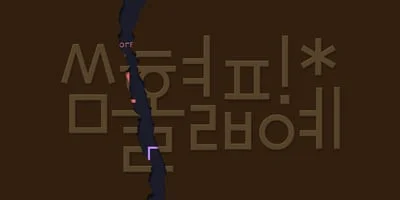
Core Dodam Font
Core Dodam Font is ideal for minimalist design projects, clean modern branding, essential business communications, core technology companies, fundamental education materials, basic geometric layouts, simple architectural presentations, streamlined corporate identities, essential product packaging, and foundational design principles.
What makes Core Dodam Font exciting is its essential simplicity and fundamental clarity that embodies the essence of core design principles with pure functionality and elemental sophistication. This refined typeface captures the spirit of fundamental design with its clean character forms and core-inspired proportions that evoke the essential building blocks of great typography, the fundamental principles that support all excellent design, and the kind of elemental beauty that comes from reducing everything to its most essential form. The font's fundamental character creates an immediate impression of clarity and the kind of essential elegance that defines truly foundational design.
Core Dodam Font family includes regular weight with essentially crafted character designs featuring fundamental proportions and core styling. The typeface maintains exceptional readability while showcasing its distinctive elemental personality through cleanly designed letterforms that reflect the pure geometry and essential principles that form the foundation of excellent typography.
Design professionals consistently select Core Dodam Font for projects requiring authentic fundamental appeal and essential credibility. This remarkable typeface brings the power of core design principles to brand communications, combining elemental aesthetics with foundational functionality to create memorable essential experiences. The fundamentally designed characters ensure core positioning across all applications, making it essential for design studios, technology companies, and any organization seeking to communicate the transformative power of fundamental principles and the essential beauty that comes from embracing the core elements of excellent design through Core Dodam Font.